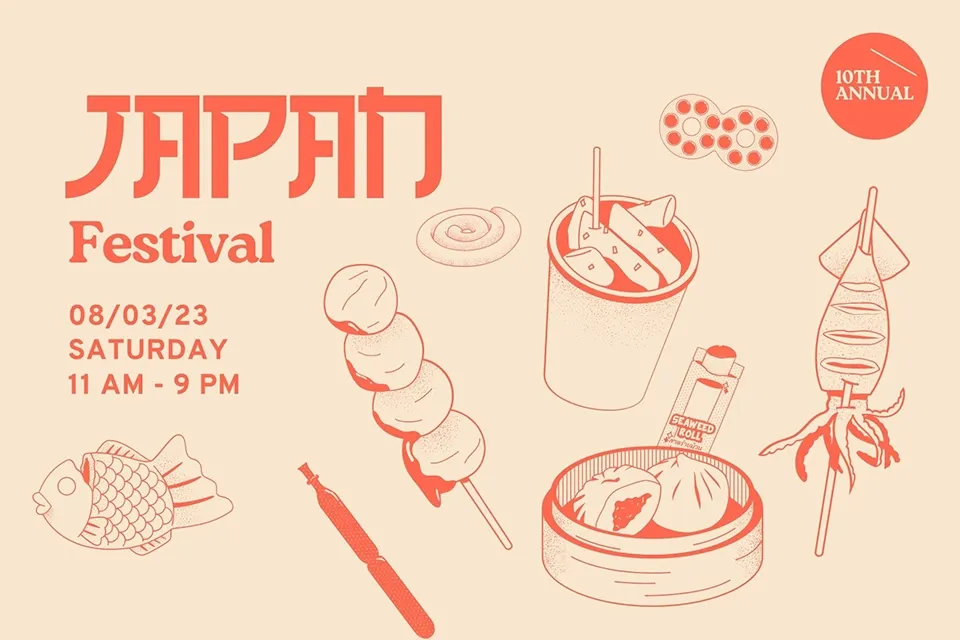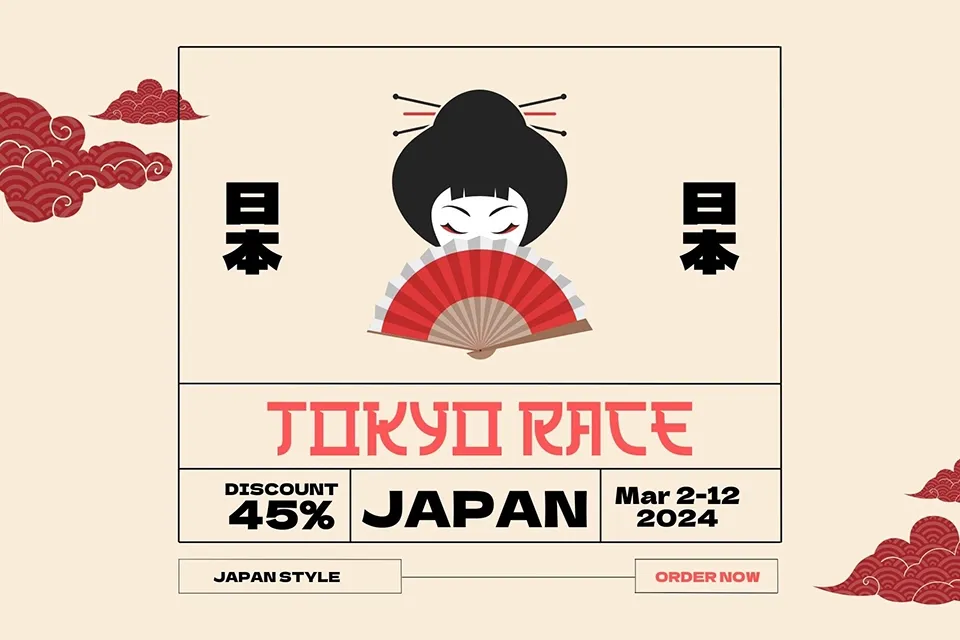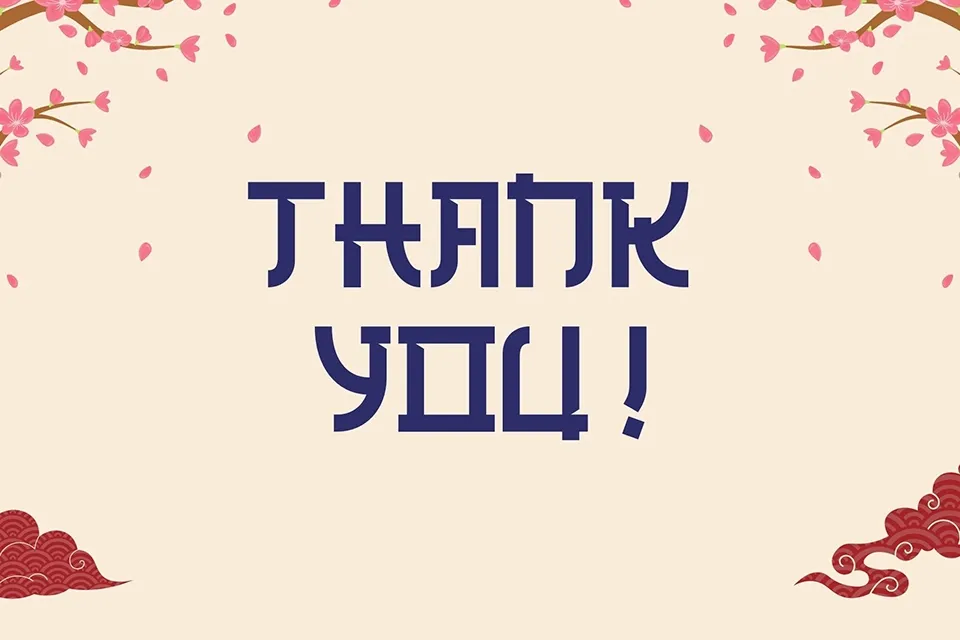
Japan Rich Font
Japan Rich Font is a bold geometric display typeface inspired by Japanese Kanji typography, blending traditional Asian aesthetics with modern design elements. This versatile typeface features high-contrast letterforms with thick lines and angular shapes, making it particularly striking in larger sizes. The font family includes uppercase, lowercase, numbers, punctuation, and multilingual support. Its distinctive style combines cultural elements with contemporary flair, making it ideal for logos, branding, social media posts, advertisements, and product designs. While not suitable for body copy, Japan Rich excels in creating eye-catching headlines and titles that demand attention in posters, flyers, websites, and magazines.